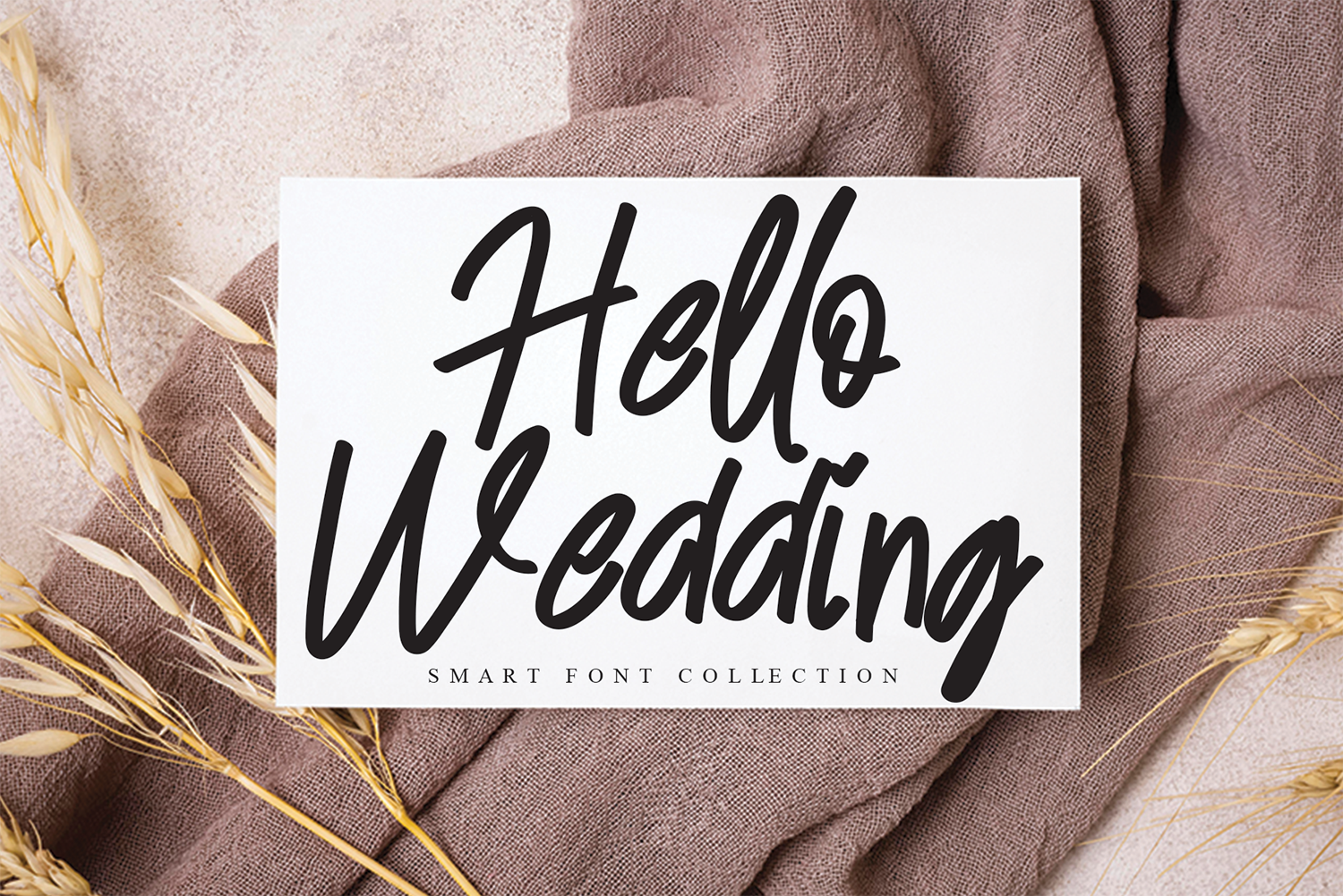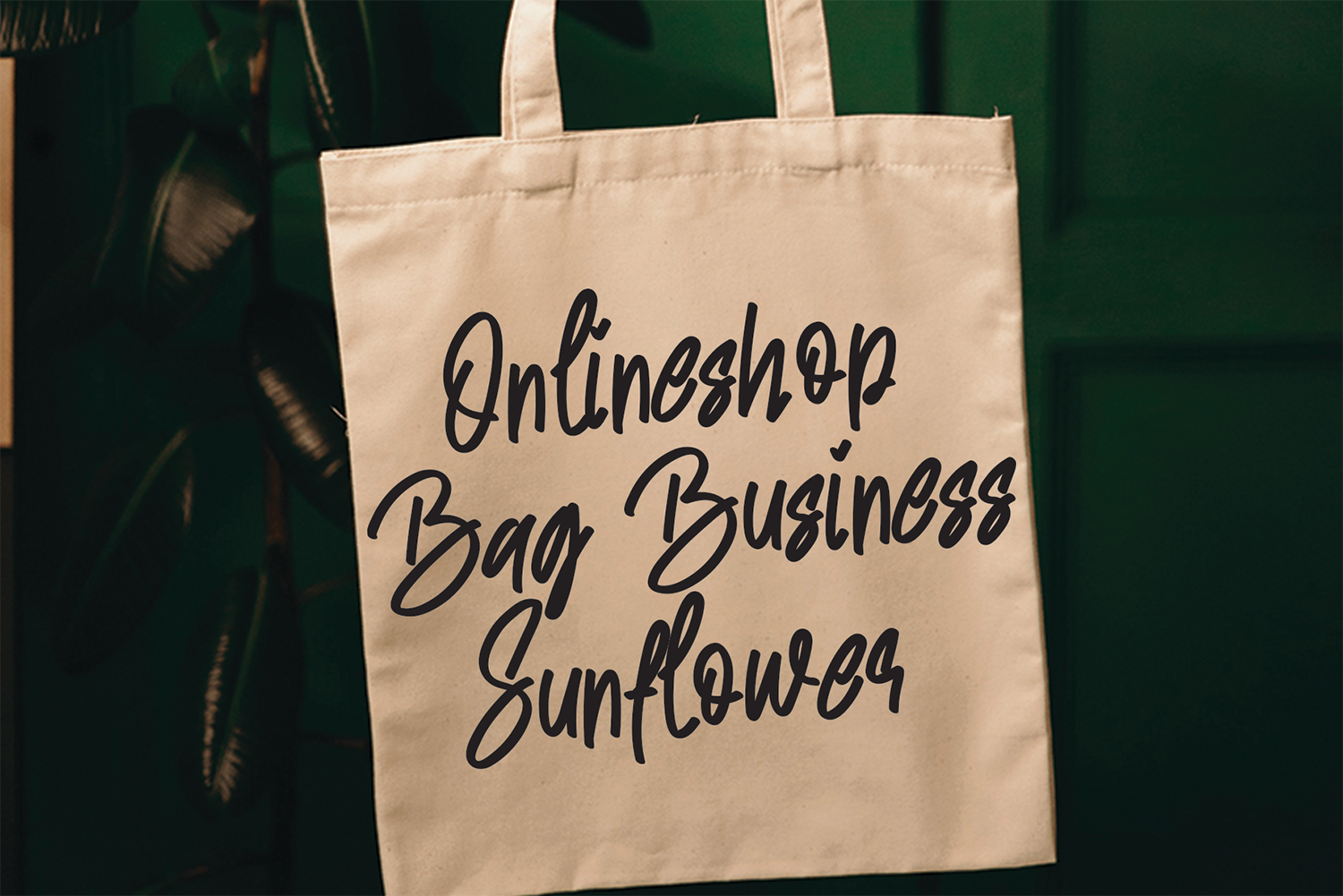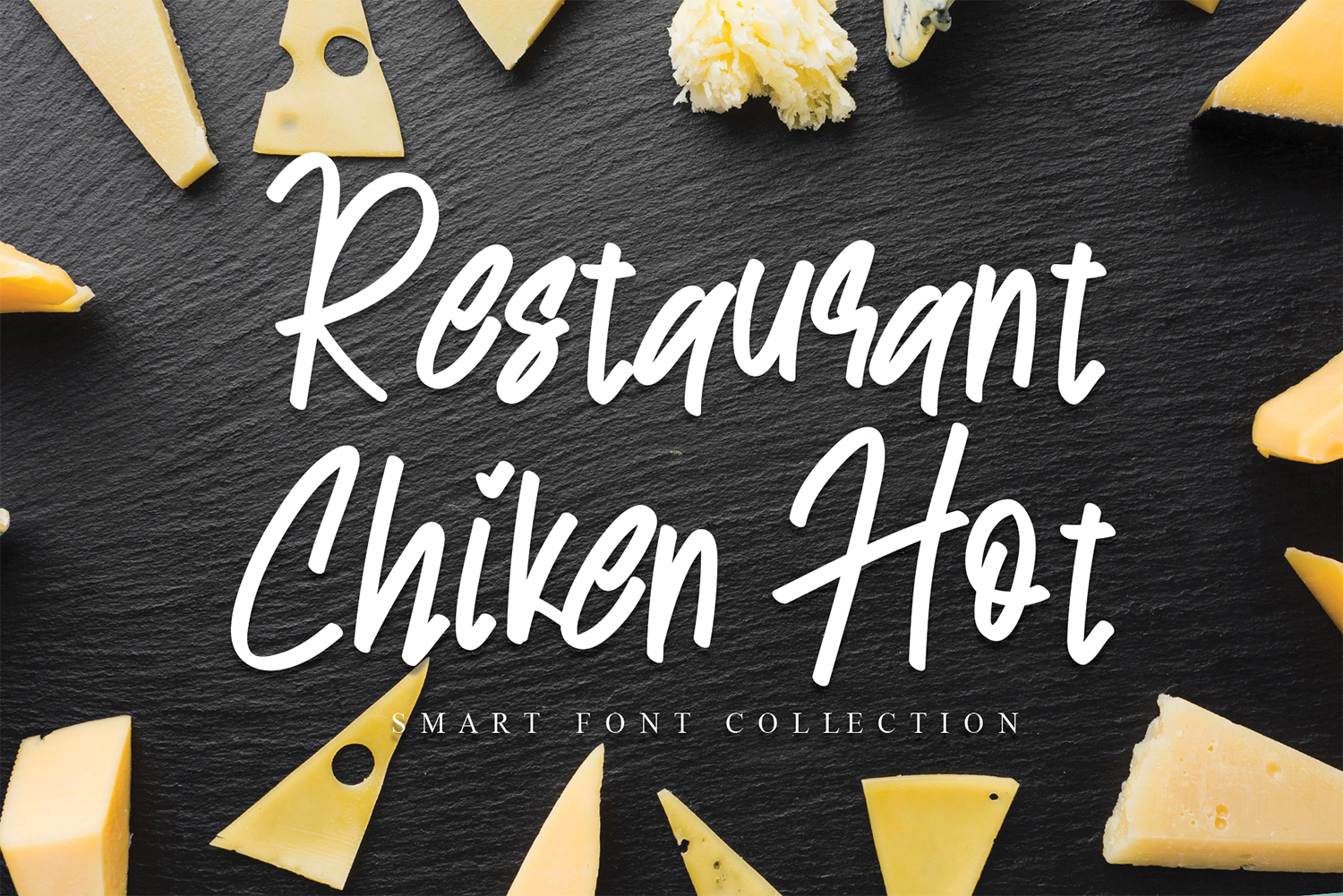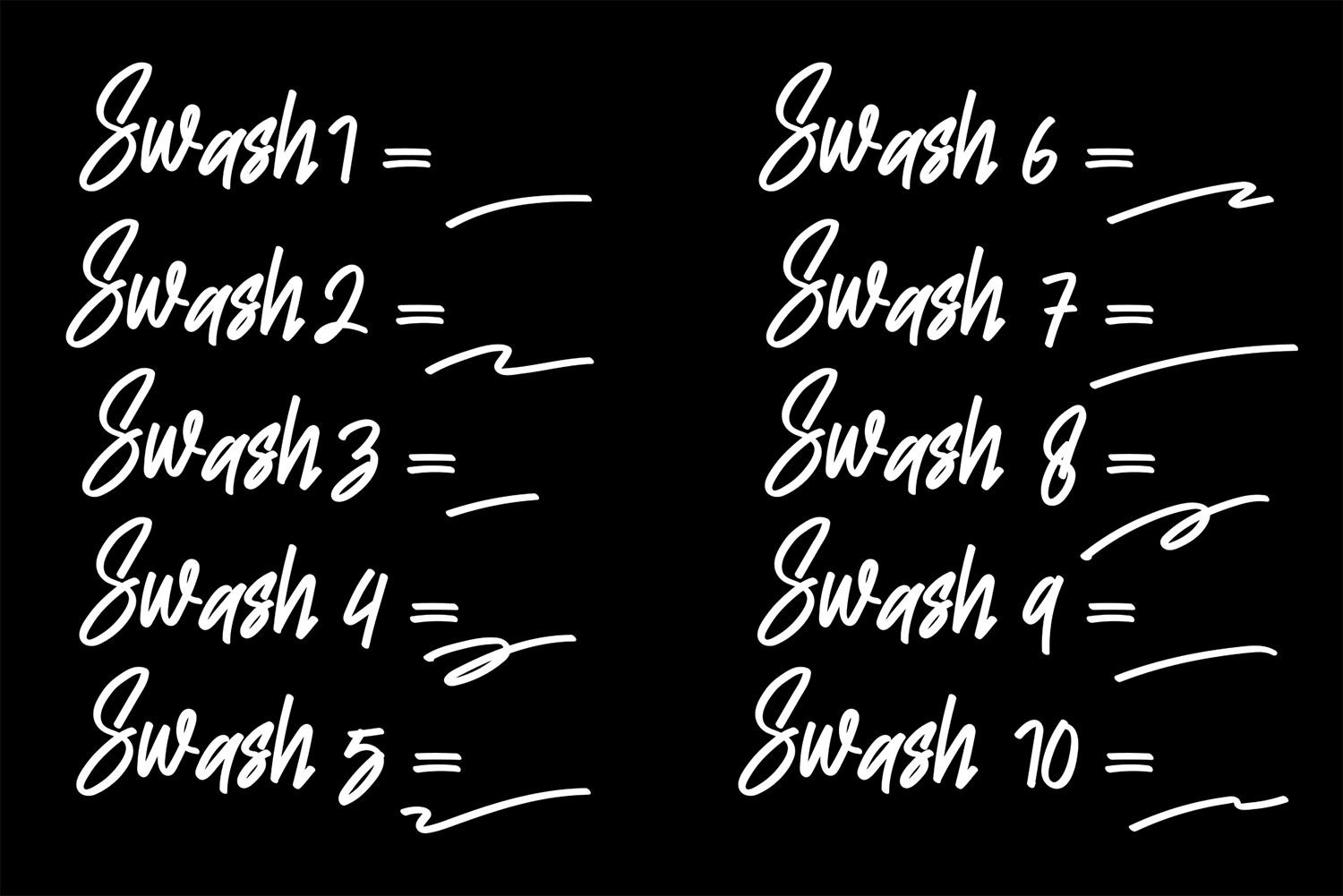
Amettarilla Free Font
Behold Amettarilla Free Font, a script font that embodies both style and unparalleled elegance. Its charm graces wedding invitations, thank you cards, quotes, greeting cards, logos, business cards, and any design that craves a touch of handwritten allure. This free typeface was designed by a talented Scratchones Creative. If you like it don’t forget to check out the full version.